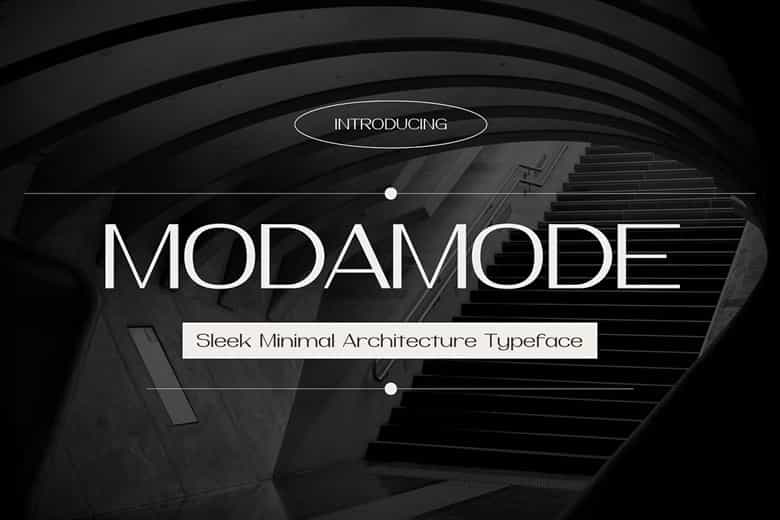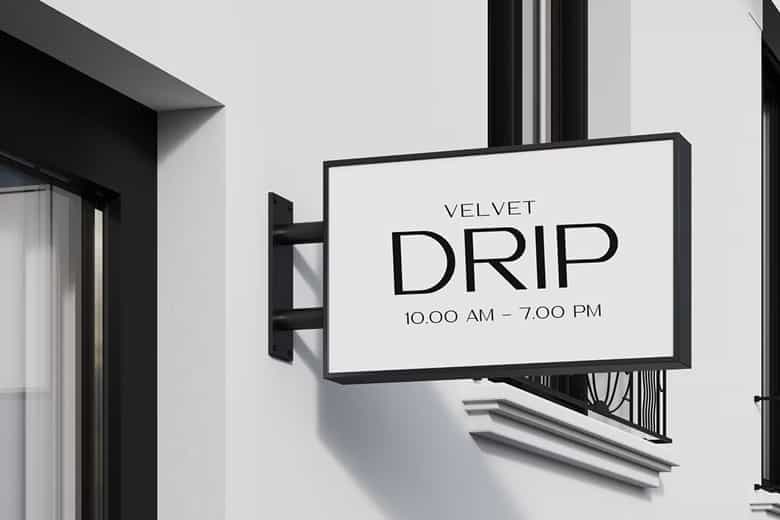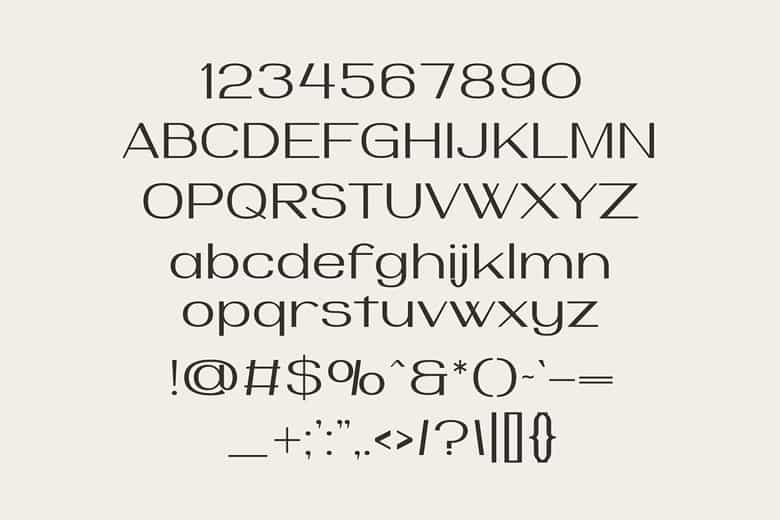
Modamode functions as a sophisticated sans serif font which unites the principles of contemporary architecture with high fashion elements. The modern design elements of Modamode express contemporary sophistication in a stylish minimalist style through its precise letterforms. Businesses like architecture firms plus fashion brands together with upscale editorials plus high-end branding projects should opt for this typeface because of its design features.